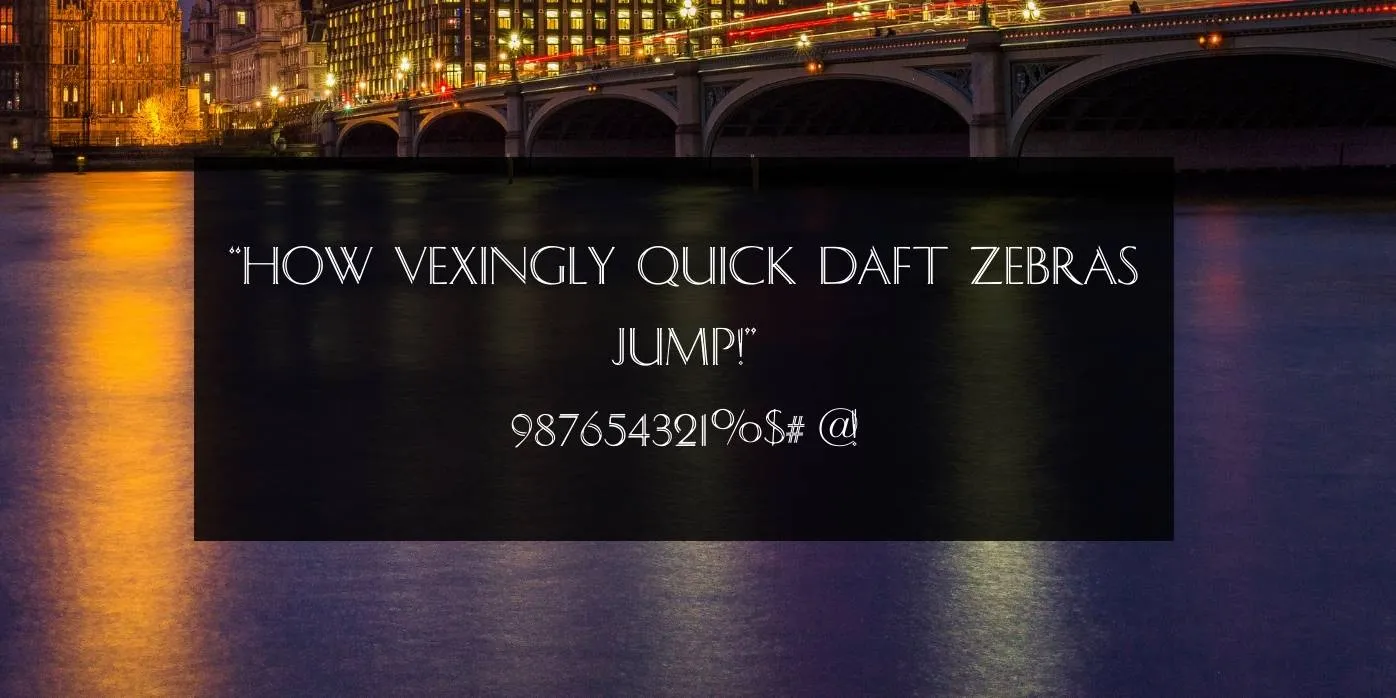
Caesar Font
Today, we present Caesar font that belongs to the sans serif family. This typeface was created by Graphic Designer Mario Fellegi. The sans serif family is the most widely used font for both digital and print media. This is likely because it looks modern, clean, and easy to read.
This typeface is perfect for headlines, body copy, and even small paragraphs of text. They work well on both web and print projects. Caesar Typeface is no exception – it’s a great all-rounder that can be used for a variety of purposes. Its similar right hand font is best for many design projects.
If you’re looking for a sans serif font with a bit of personality, Caesar Typeface is a great choice. It has strong geometric shapes and comes in a range of weights from light to bold. The lightest weights are perfect for headlines and large displays. Its generator tool is classic for a lot of designs.